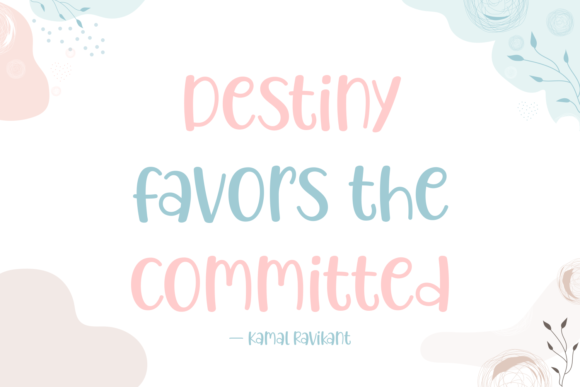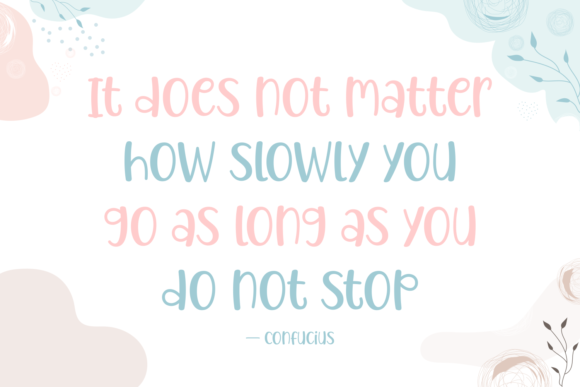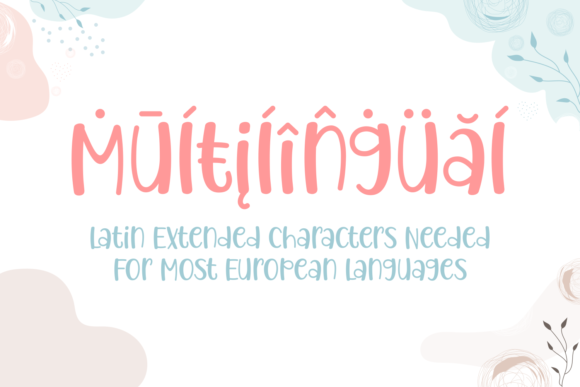
Corchado Font
About Corchado Font
Corchado is a whimsical and sweet handwritten font. Friendly, sweet and lovely, this font will make each of your designs look outstanding.